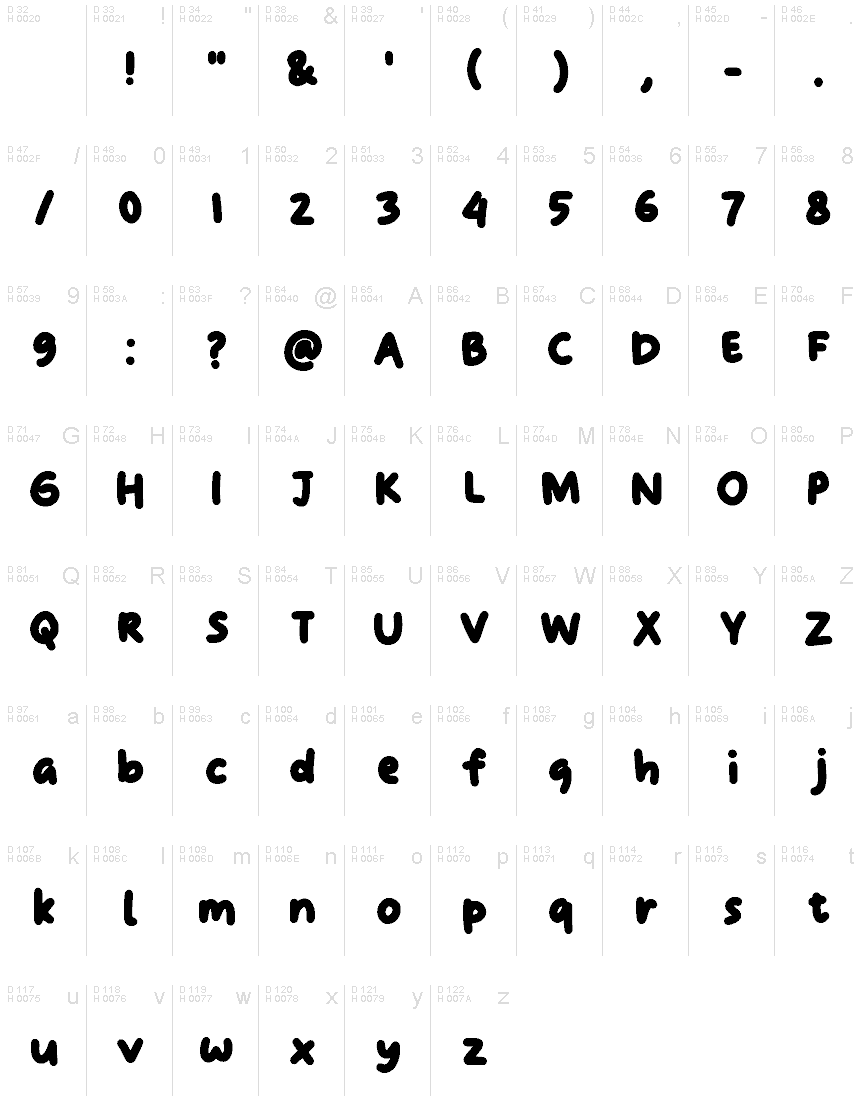
Bobosipta Regular
Bobosipta font by Ay Slte is a bold handwritten font with a rounded and playful look. Its letters introduce an organic style that’s equal parts casual, whimsical, and friendly. The font retains its modern look which makes it suitable for elevating designs targeted at the youth.
Let Bobosipta catch eyes on social media posts or challenge your creativity as your newest editing software brushes. Use it for logos, covers, book titles, store signs, posters/flyers/leaflets, tote bags and clothes typography (such as T-shirts). Design website headers with Bobosipta or let it put character in TV shows/ movies opening credits.